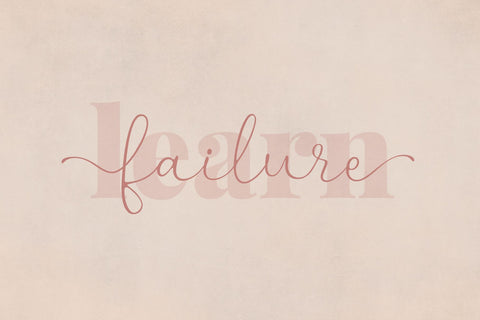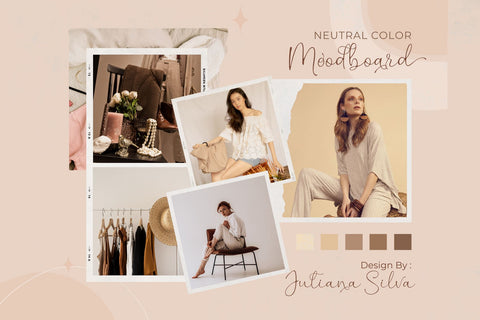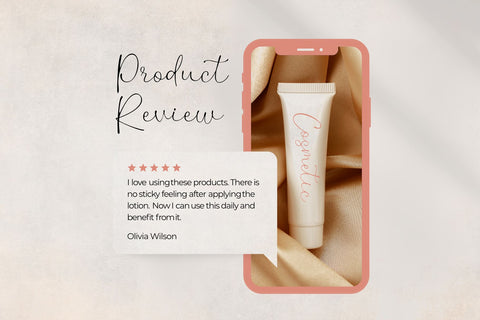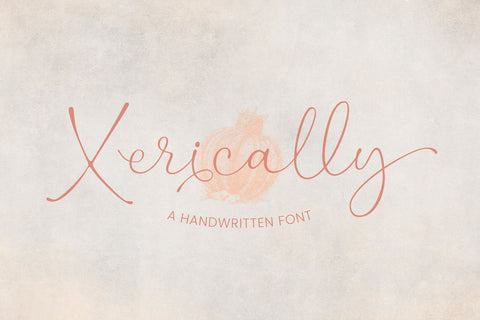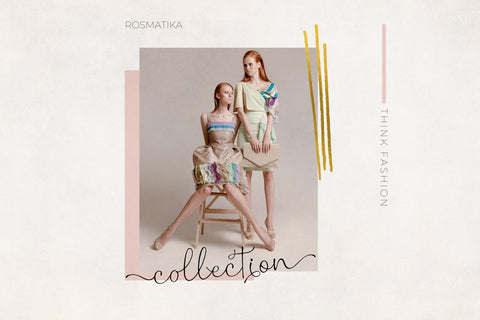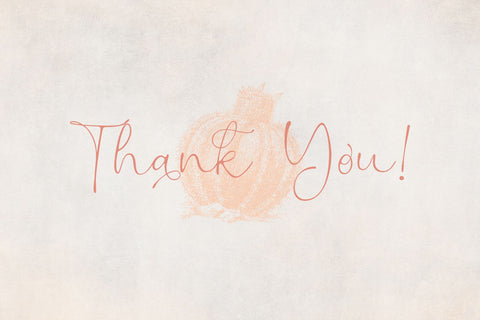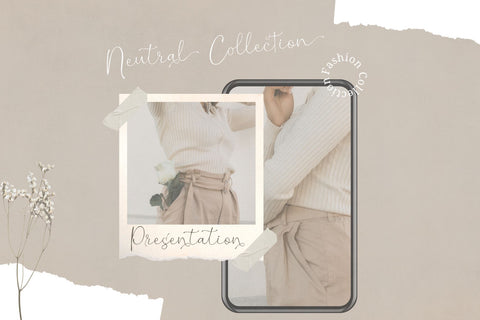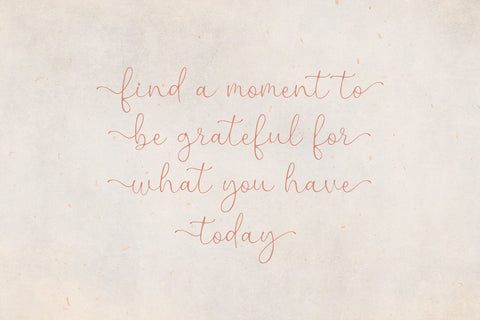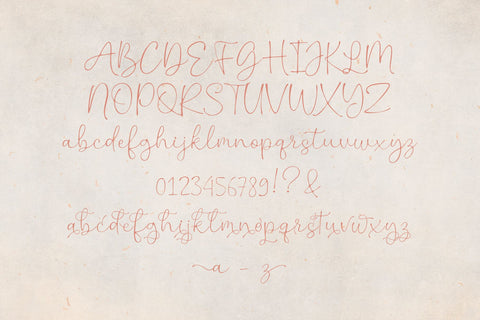
Xerically - a Handwritten Font
Xerically is a natural, elegant, and flowing handwritten font. It has beautiful and well-balanced characters and as a result, it matches a wide pool of designs. Xerically is PUA encoded, which means you can access all of the glyphs and swashes with ease!